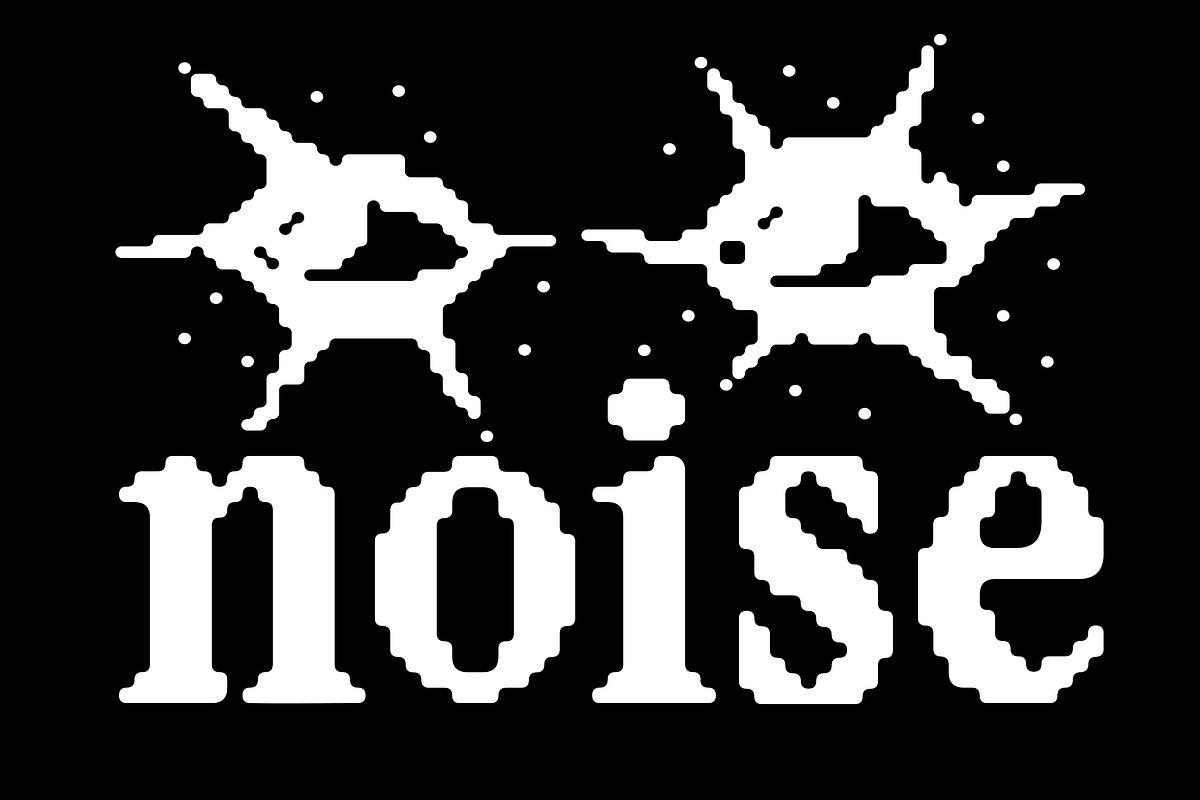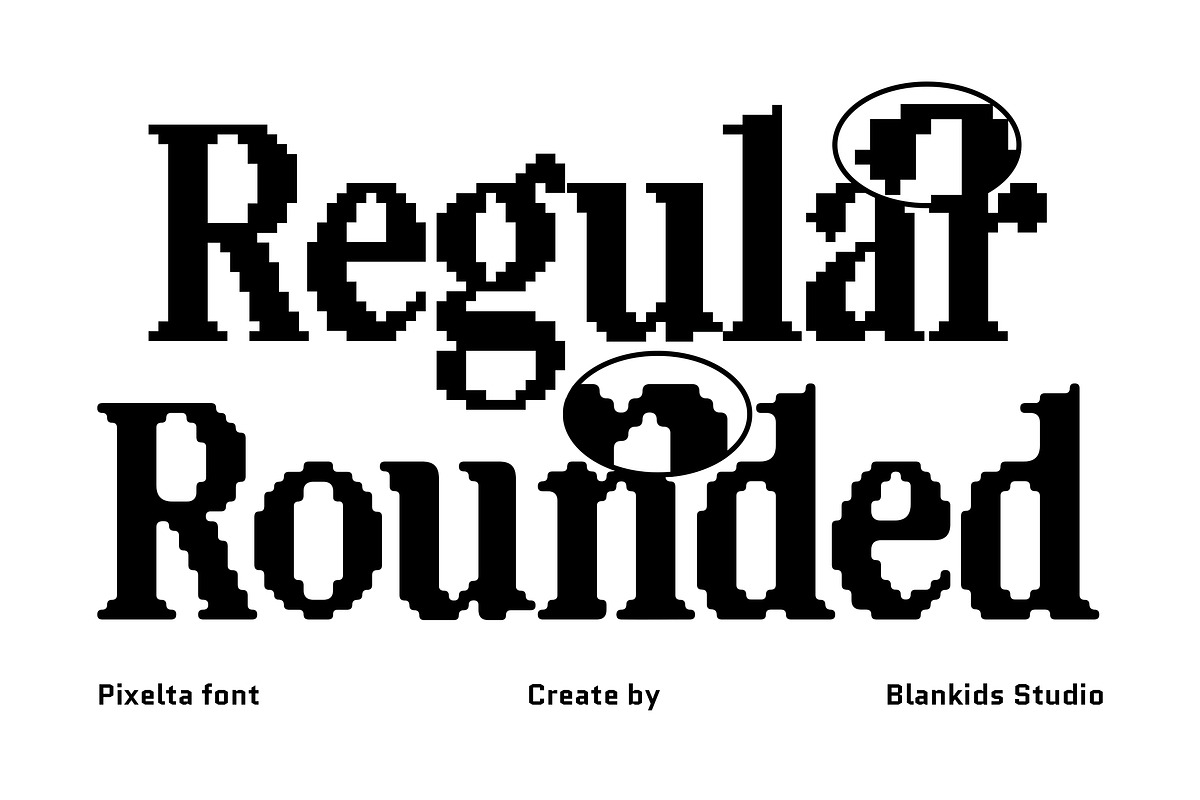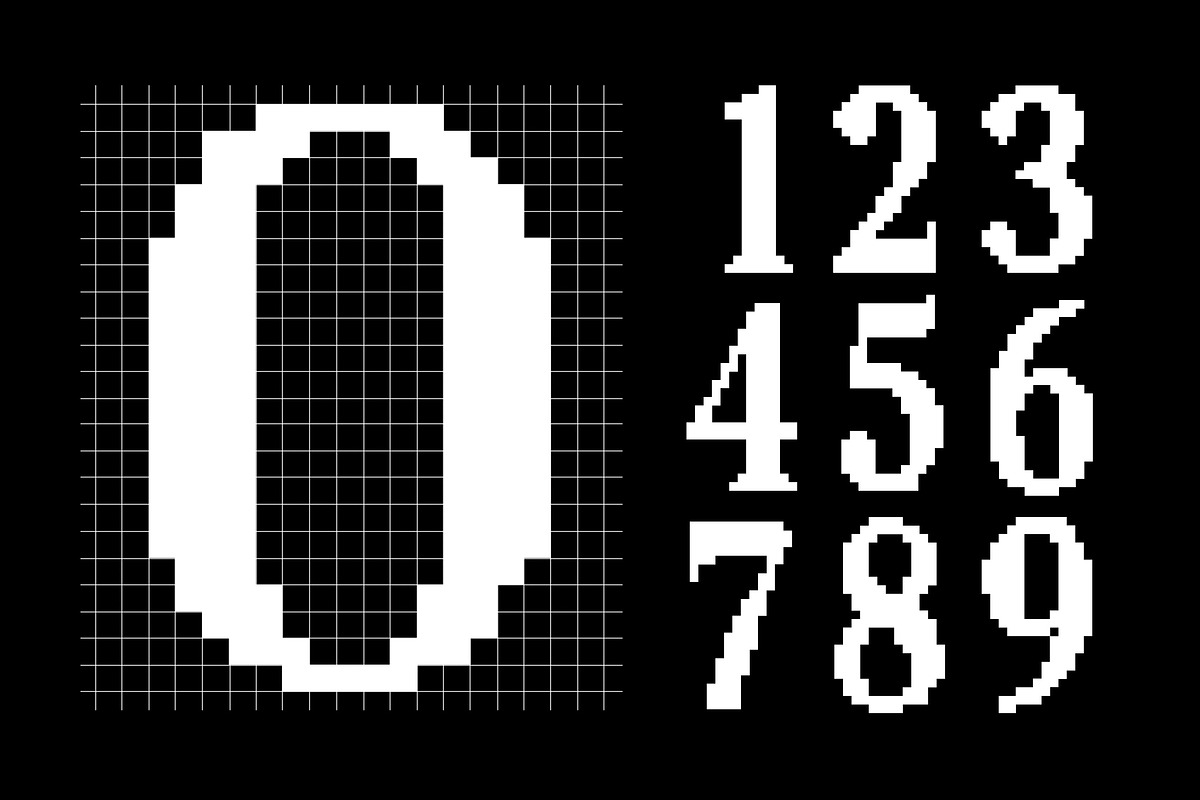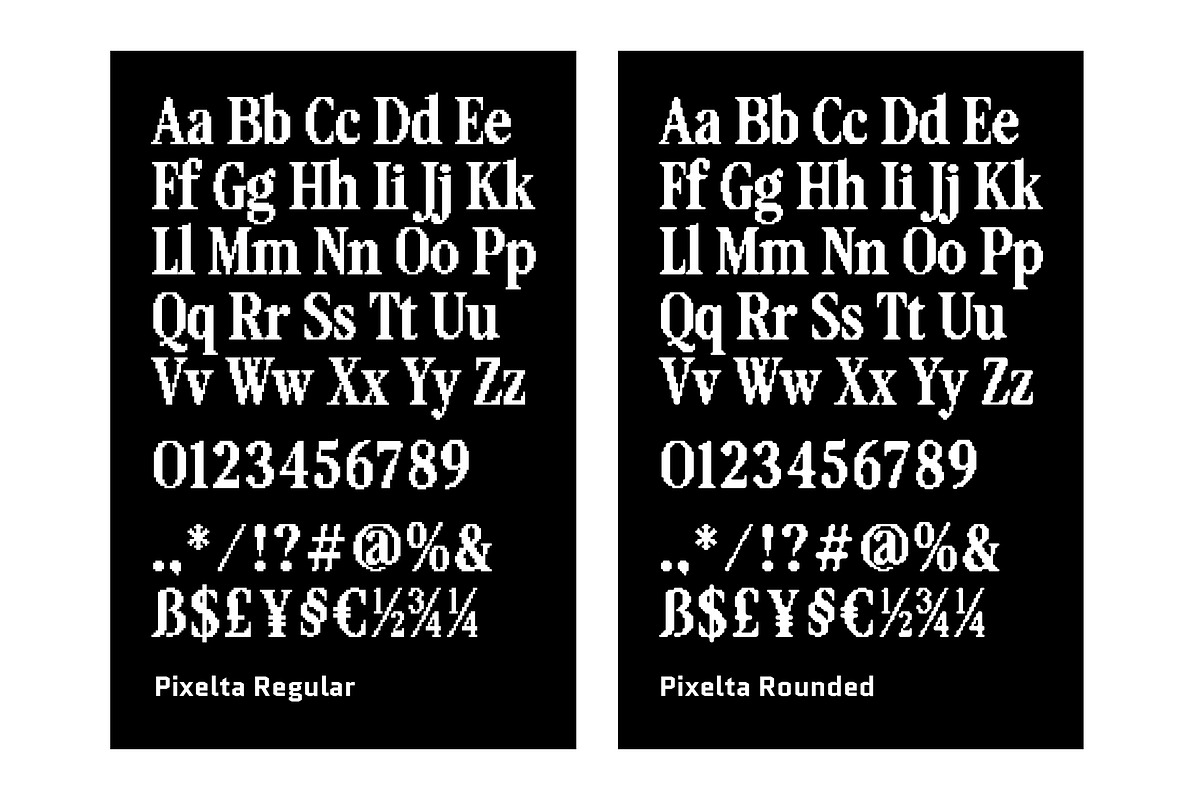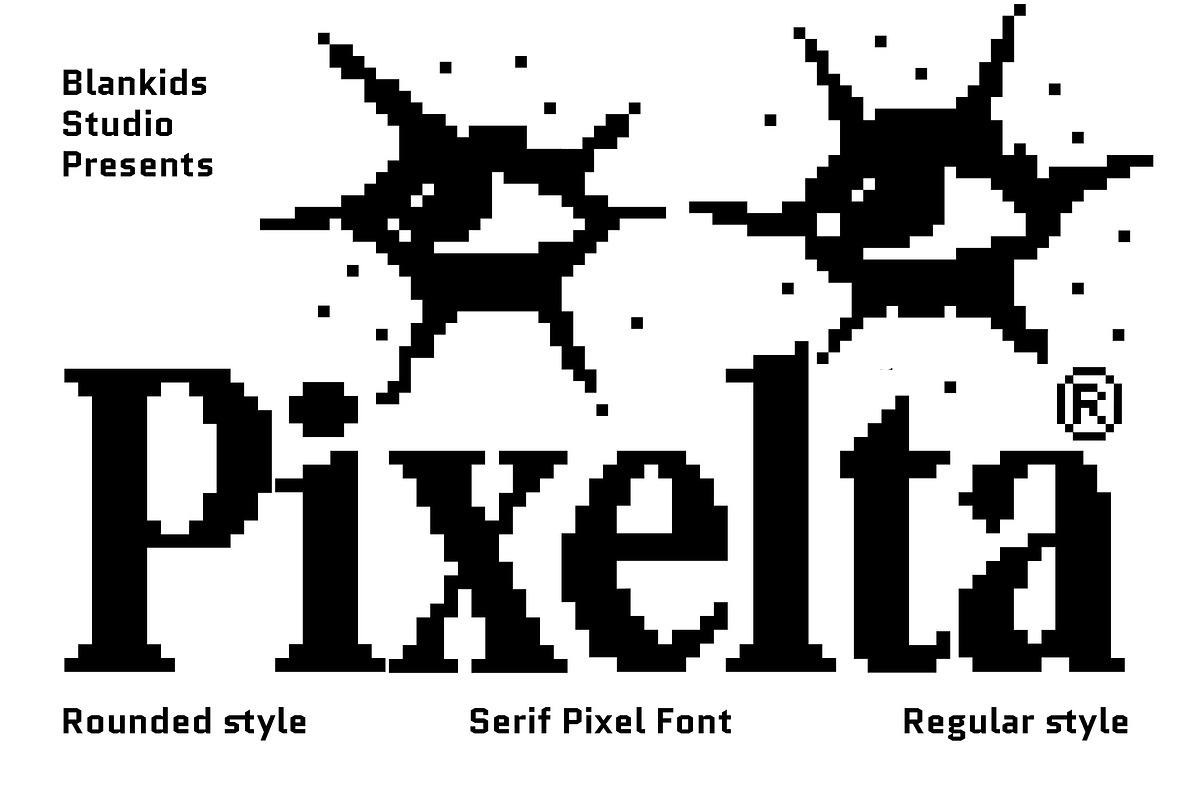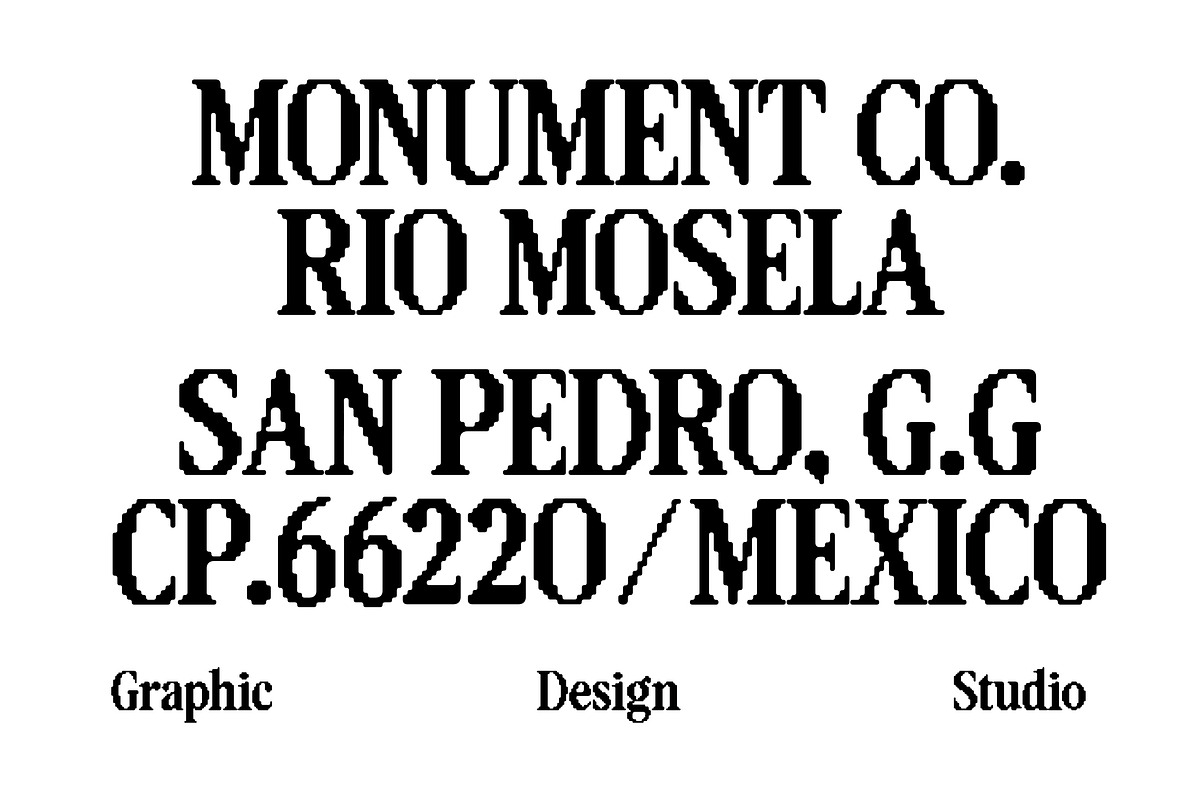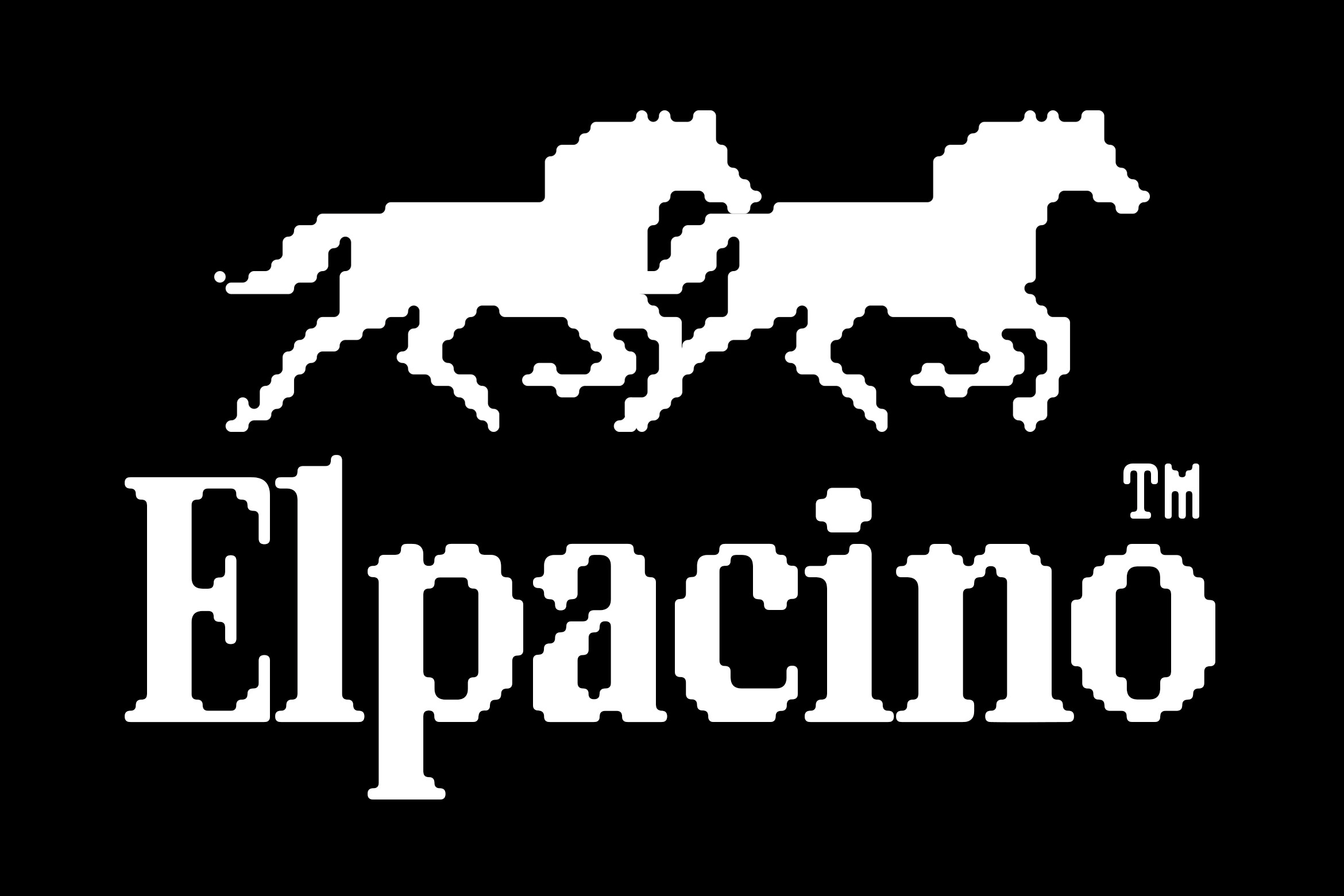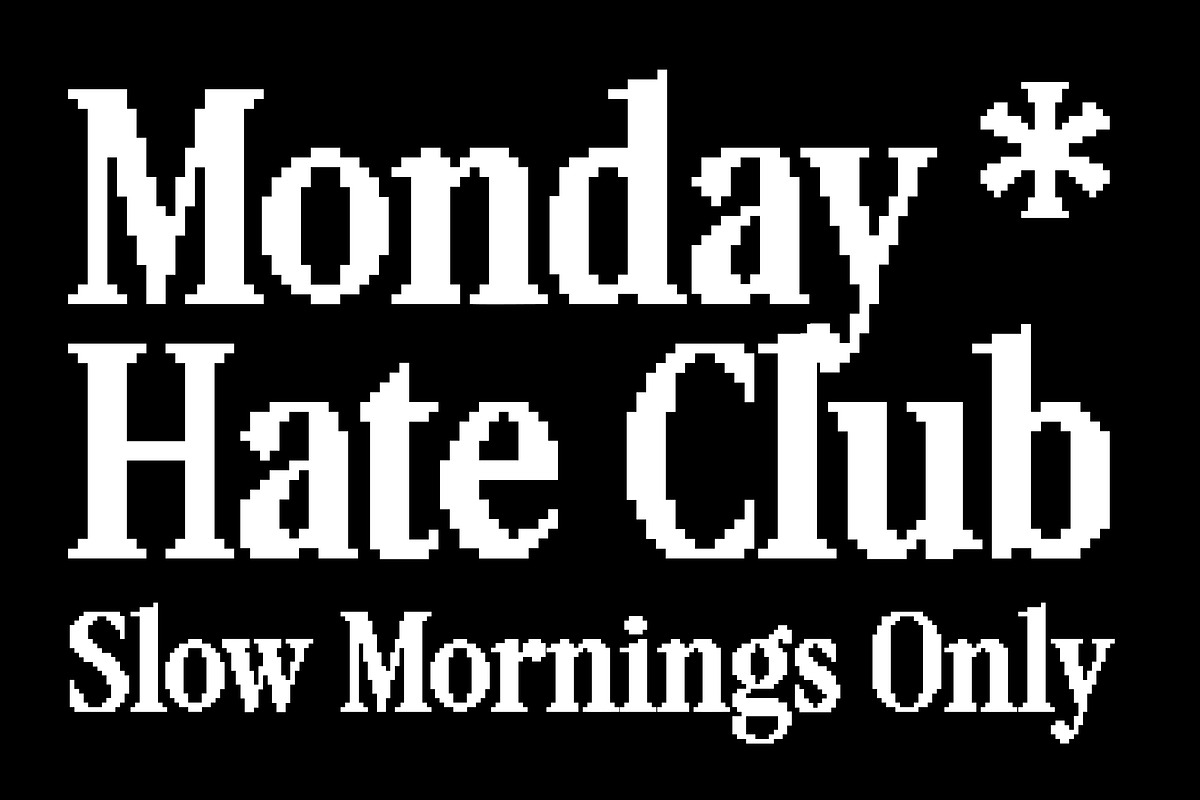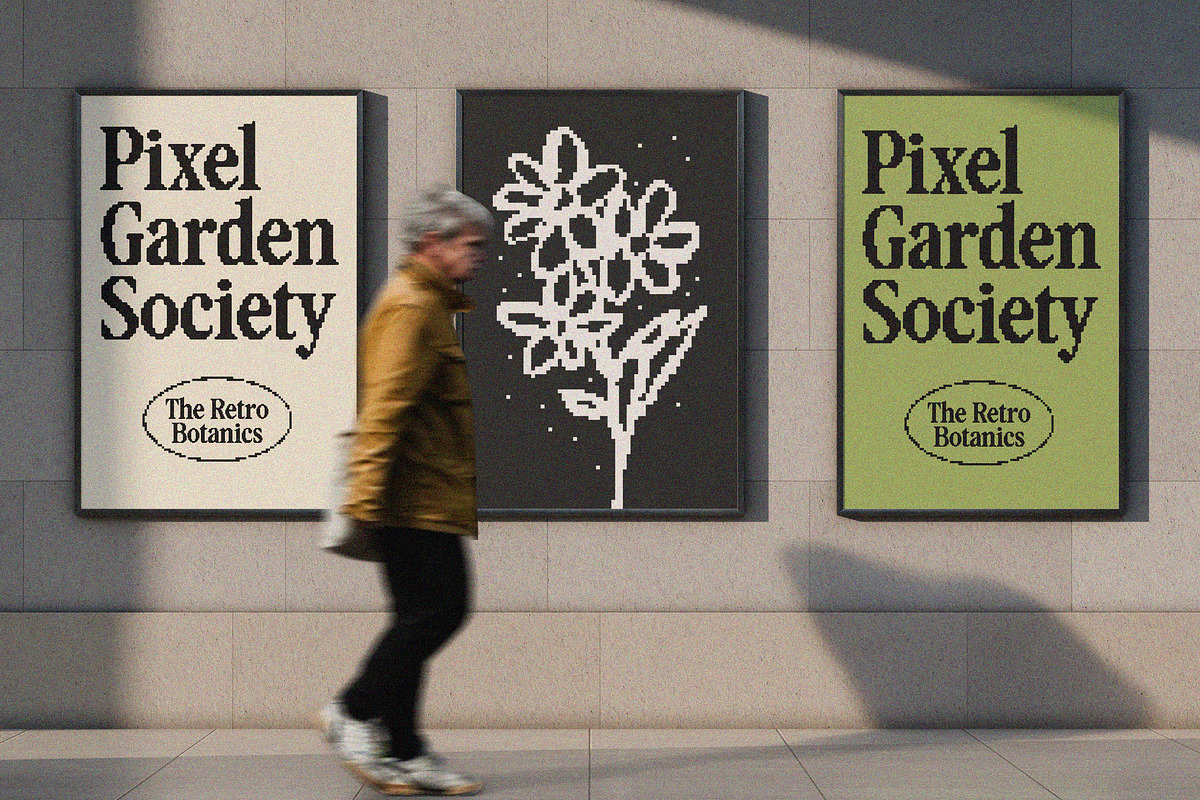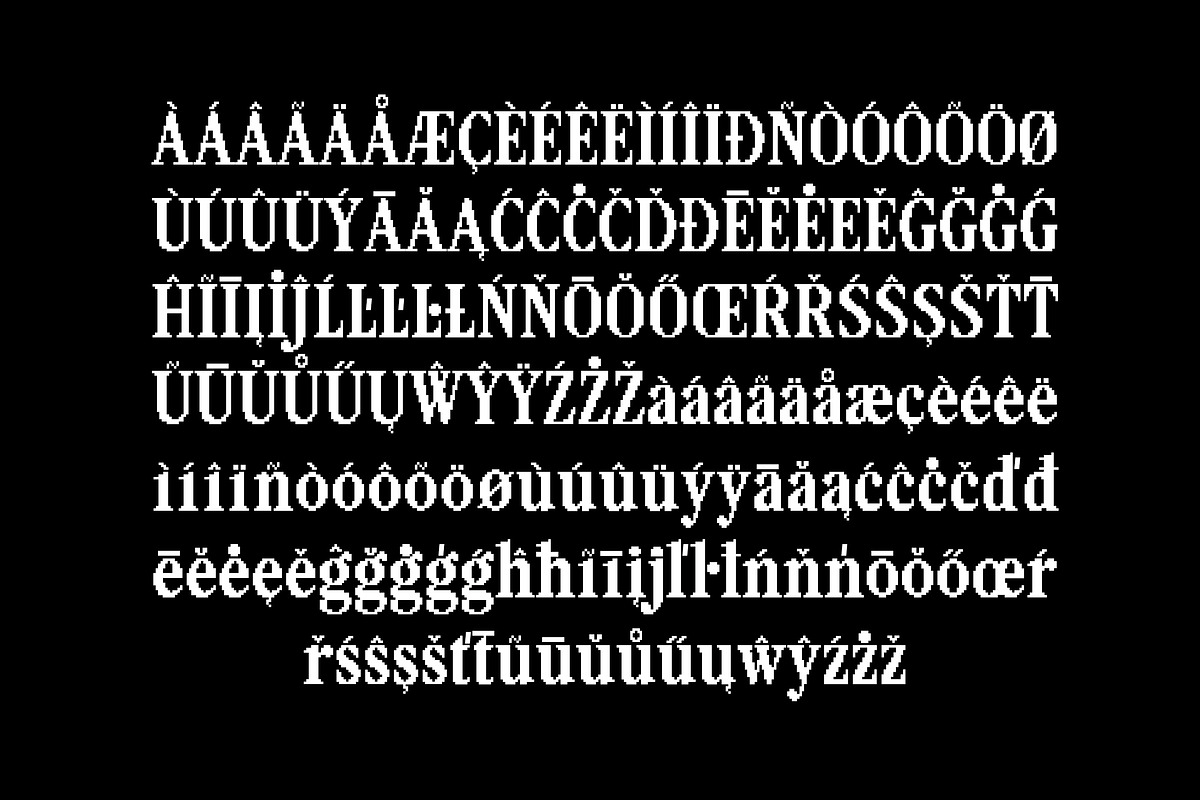
Pixelta – Serif Pixel Font
Pixelta is a bold serif pixel font that blends retro bitmap aesthetics with modern display clarity. Designed to stand out in headlines and branding, Pixelta brings nostalgic 8-bit charm while keeping strong readability for today’s digital and print projects.
This font comes in Regular and Rounded styles, giving you flexibility to switch between sharp vintage vibes and a softer, friendlier look. With clean pixel curves, distinctive serifs, and eye-catching numerals, Pixelta is perfect for posters, logos, packaging, gaming visuals, social media graphics, and experimental typography.
Serif pixel display font
Regular & Rounded styles included
Strong uppercase, lowercase, numerals & symbols
Ideal for branding, posters, gaming, editorial & web graphics
Retro aesthetic with modern usability
If you’re looking for a pixel font that feels classic yet fresh, Pixelta is made to stand out.